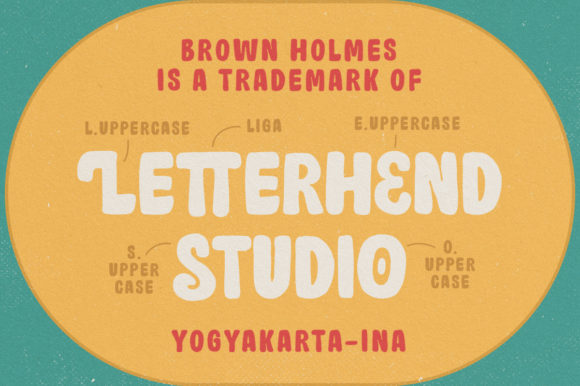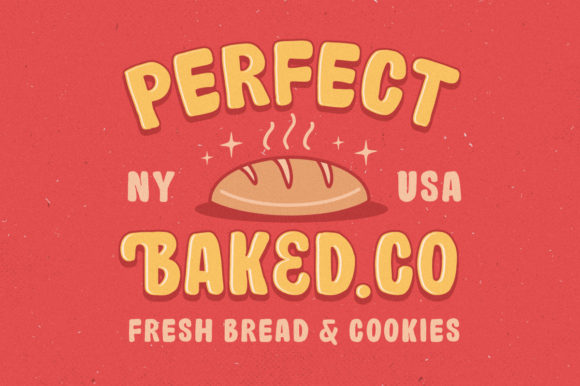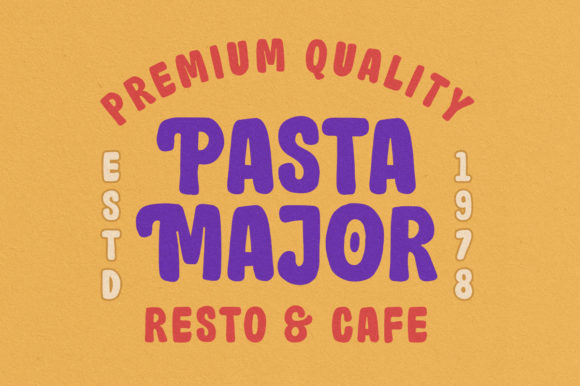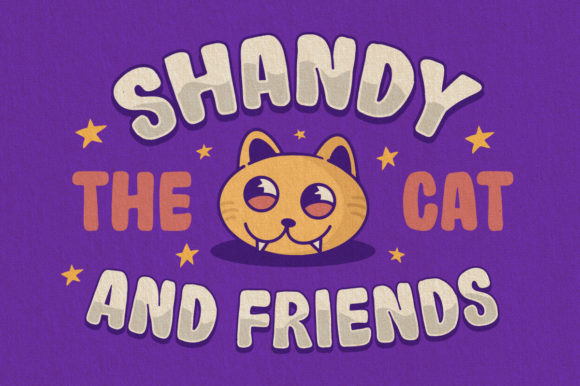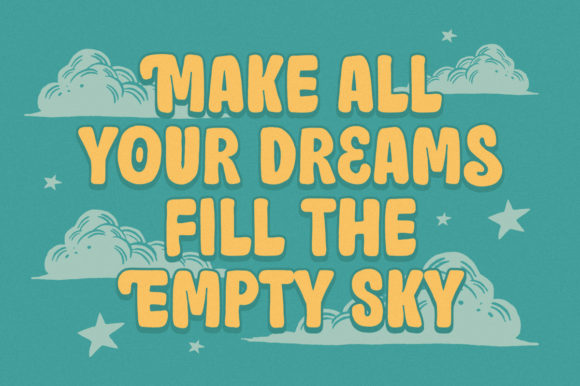
Brown Holmes Font: The Perfect Choice for Fun and Playful Designs
Brown Holmes is a delightful display font that embodies the essence of playfulness and authenticity. This cute and fun font is ideal for children’s activities, school projects, and any design that requires a touch of whimsy. With its chunky lettered style, Brown Holmes is sure to bring your designs to life and make them stand out from the crowd.
The Characteristics of Brown Holmes Font
Brown Holmes font is a display font that boasts a unique and charming appearance. Its chunky letters are carefully crafted to give your designs a playful and carefree feel. The font’s bold and rounded edges make it perfect for use in children’s books, educational materials, and other projects that require a fun and youthful approach.
Why Choose Brown Holmes Font?
There are many reasons why Brown Holmes font is an excellent choice for designers and crafters. Here are a few:
- Playfulness: Brown Holmes font is designed to bring a sense of playfulness and fun to your designs. Its chunky letters and rounded edges make it perfect for projects that require a youthful and carefree approach.
- Authenticity: This font embodies authenticity and sincerity, making it ideal for projects that require a genuine and heartfelt approach.
- Versatility: Brown Holmes font can be used in a wide range of projects, from children’s books and educational materials to posters, flyers, and other marketing materials.
- Ease of use: This font is easy to read and understand, making it perfect for projects that require clear and concise communication.
How to Use Brown Holmes Font in Your Designs
Using Brown Holmes font in your designs is easy and straightforward. Here are a few tips to get you started:
- Pair it with other fonts: Brown Holmes font can be paired with other fonts to create a unique and visually appealing combination. Try pairing it with a sans-serif font for a modern and playful look.
- Use it in headlines: Brown Holmes font is perfect for use in headlines and titles. Its bold and chunky letters make it easy to read and understand, even from a distance.
- Add color and texture: Brown Holmes font can be customized with color and texture to match your brand’s unique style. Try adding a bright color or a fun texture to give your designs a playful touch.
Brown Holmes Font in Education and Child Development
Brown Holmes font is an excellent choice for educational materials and child development projects. Its playful and youthful approach makes it perfect for:
- Children’s books: Brown Holmes font can be used to create engaging and interactive children’s books that promote learning and development.
- Educational posters: This font can be used to create eye-catching posters that promote learning and education.
- Activity sheets: Brown Holmes font can be used to create fun and interactive activity sheets that promote creativity and development.
Brown Holmes font is a delightful display font that embodies playfulness and authenticity. Its chunky lettered style makes it perfect for children’s activities, school projects, and any design that requires a touch of whimsy. With its versatility, ease of use, and unique characteristics, Brown Holmes font is an excellent choice for designers and crafters looking to add a playful touch to their designs.